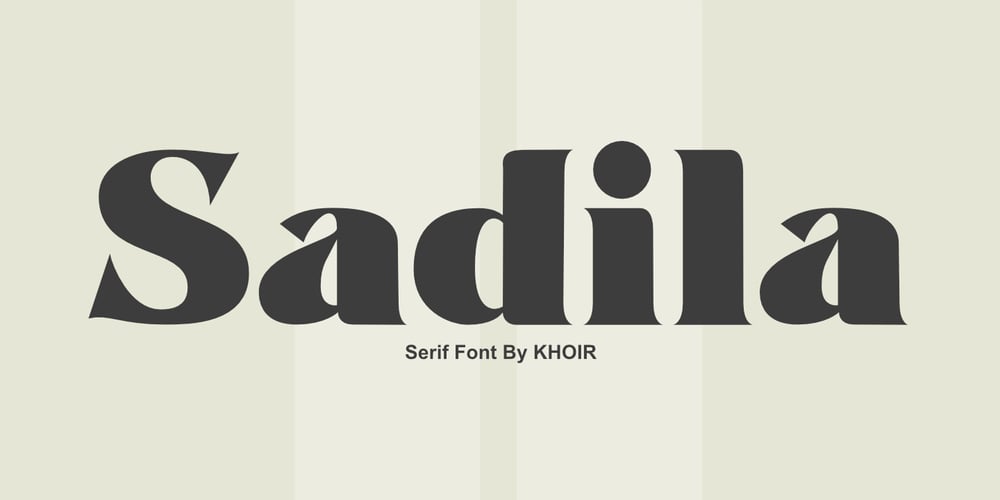
Sadila Font Family was designed by Muhammad Romzul Khoir and published by Khoir. Sadila contains 1 styles and family package options. Sadila is a simple serif. Supported by alternatives that make it look luxurious so it is suitable for all types of projects such as branding, quotes, cover design, films, web design, packaging, social media, logo design and many more, what are you waiting for!What’s included? Uppercase Characters Lowercase Characters Support 75+ Language So what are you waiting for? immediately purchase this font, feel free to email at khoirtypework@gmail.com